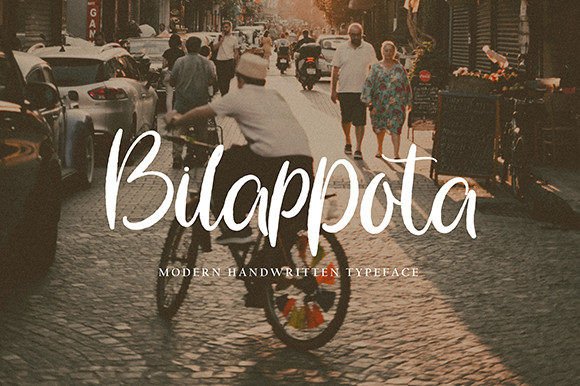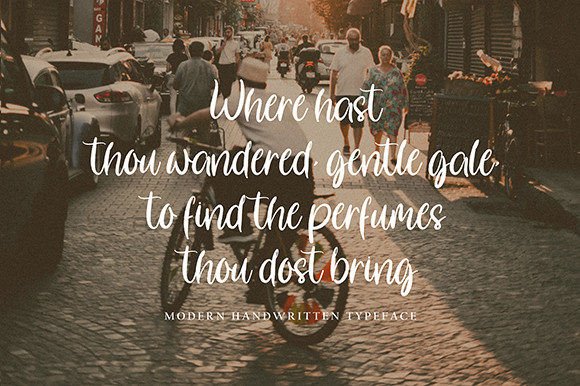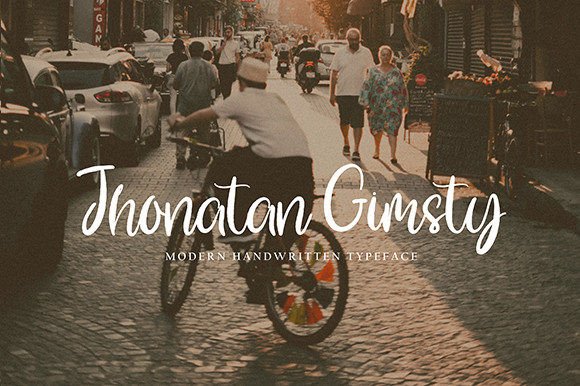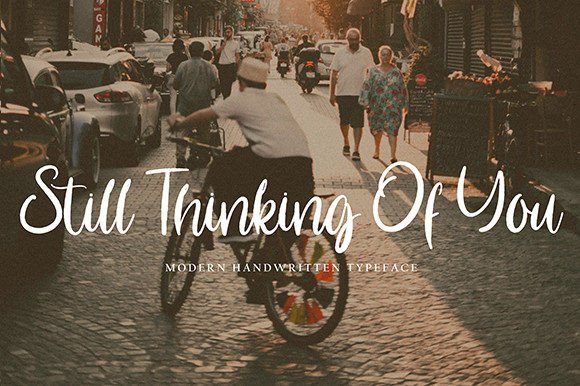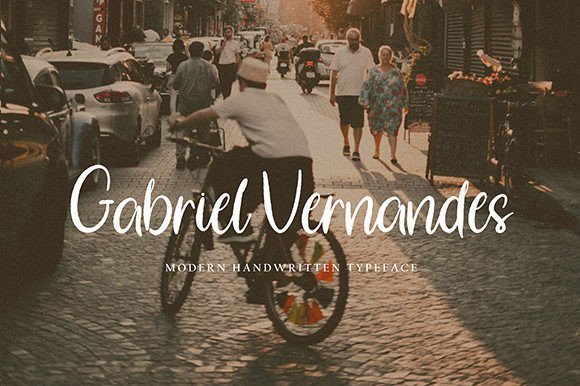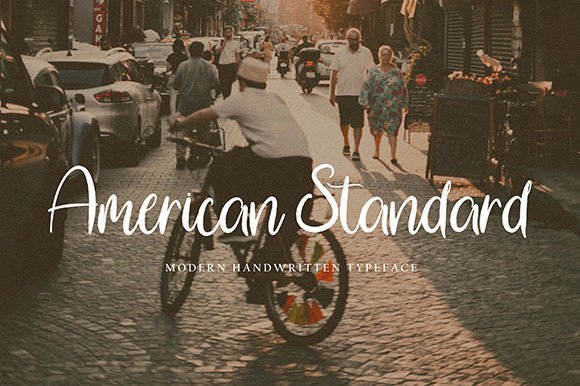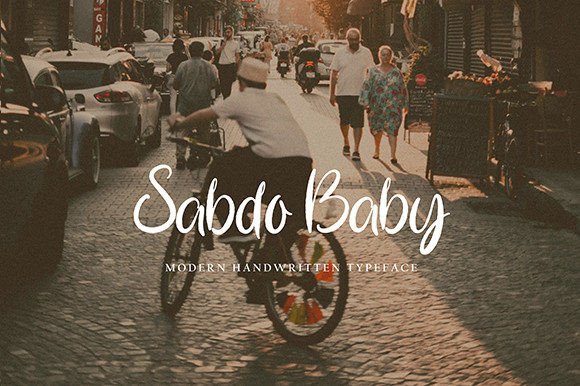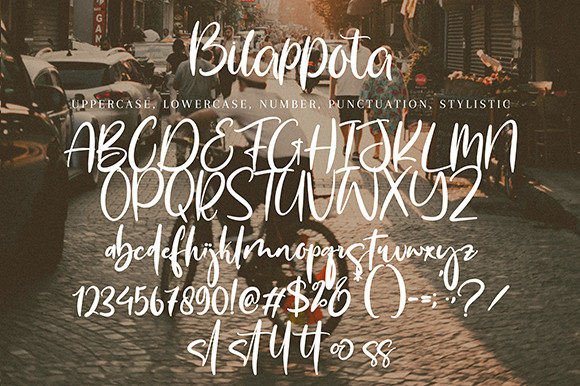
Bilappota Font
Add Elegance to Every Project with Bilappota Font
Bilappota Font is a graceful handwritten typeface that blends charm with sophistication. Whether you’re creating delicate stationery or branding for a luxury product, this font brings a polished and heartfelt touch to every design. With its smooth lines and flowing form, it offers a beautifully handcrafted look that resonates with elegance.
Perfect for Wedding and Event Designs
If you’re designing wedding invitations, thank-you cards, or quote art, Bilappota Font is an excellent choice. It adds a romantic and personalized feel without sacrificing legibility. This font is also perfect for:
• Greeting cards with a personal touch
• Elegant logo designs
• Feminine branding or packaging
• Professional business cards
You can confidently use it across both digital and print formats.
Beautifully Crafted and Easy to Use
Designed with balance and beauty in mind, Bilappota Font features consistent strokes that are neither too bold nor too thin. This ensures the text remains readable at different sizes and in various design contexts.
Furthermore, Bilappota Font includes alternate characters and ligatures, giving you creative freedom to shape your text exactly how you want. Each character connects smoothly, adding a natural handwritten rhythm to your work.
Fully Accessible for All Designers
Bilappota Font is ideal for anyone who wants to convey beauty, elegance, and sophistication in their design work. Whether you’re preparing materials for a wedding, crafting high-end product packaging, or designing a heartfelt greeting, this font will elevate your design with a personal and luxurious feel.